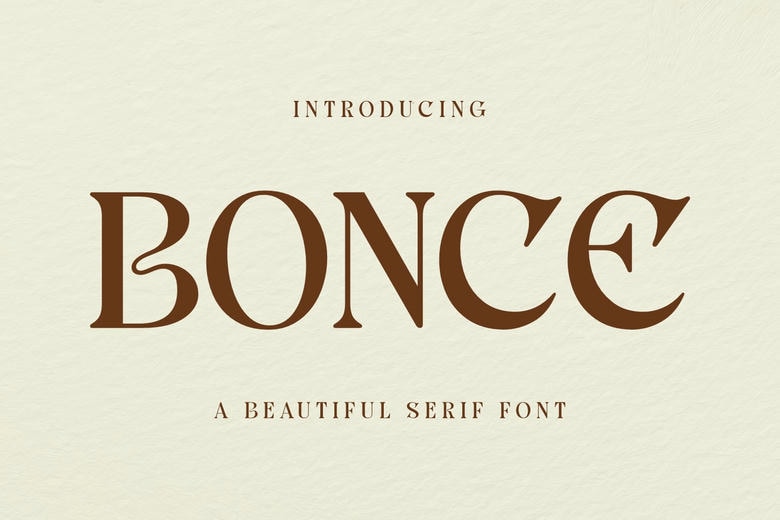
Bonce Font
Bonce is a completely new serif font that is at the same time classy and glamorous, minimalist and strict, old-school and trendy. But at the same time clever and precise for the presentation of luxury, magazine, invitation design, and logo design. Bonce has this classy look about it and does not effect readability which makes it rather impressive.
Bonce Serif Font